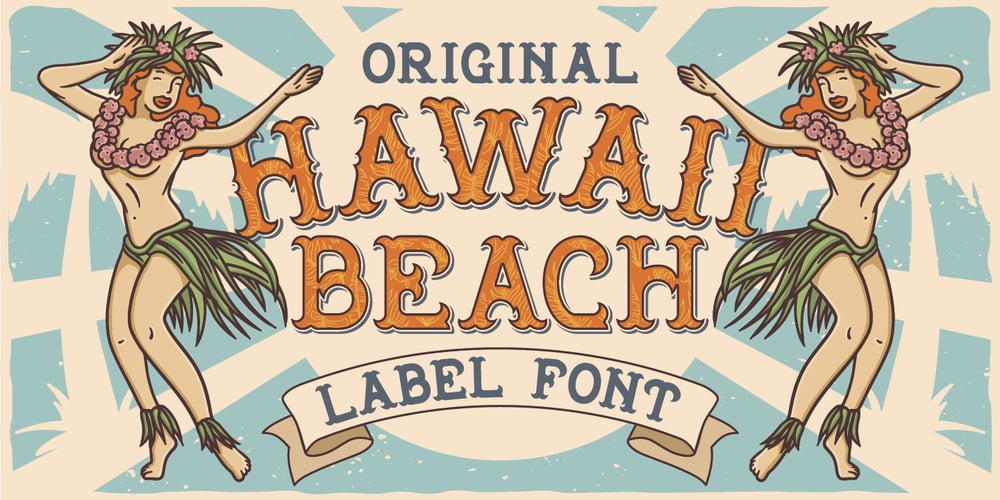
Hawaii Beach Font Family was designed by Oleg Voznyy and published by Vozzy. Hawaii Beach contains 6 styles and family package options. Introducing a vintage look label font named “Hawaii Beach”. You can see all available characters in the posters. This font has 6 styles (including layered shadow effect style) and will do well on any retro design like poster, t-shirt, label, logo etc. For using shadow effect layer: Type your text in Regular. Copy that and paste at the same position. Change the style to Shadow FX (for example).